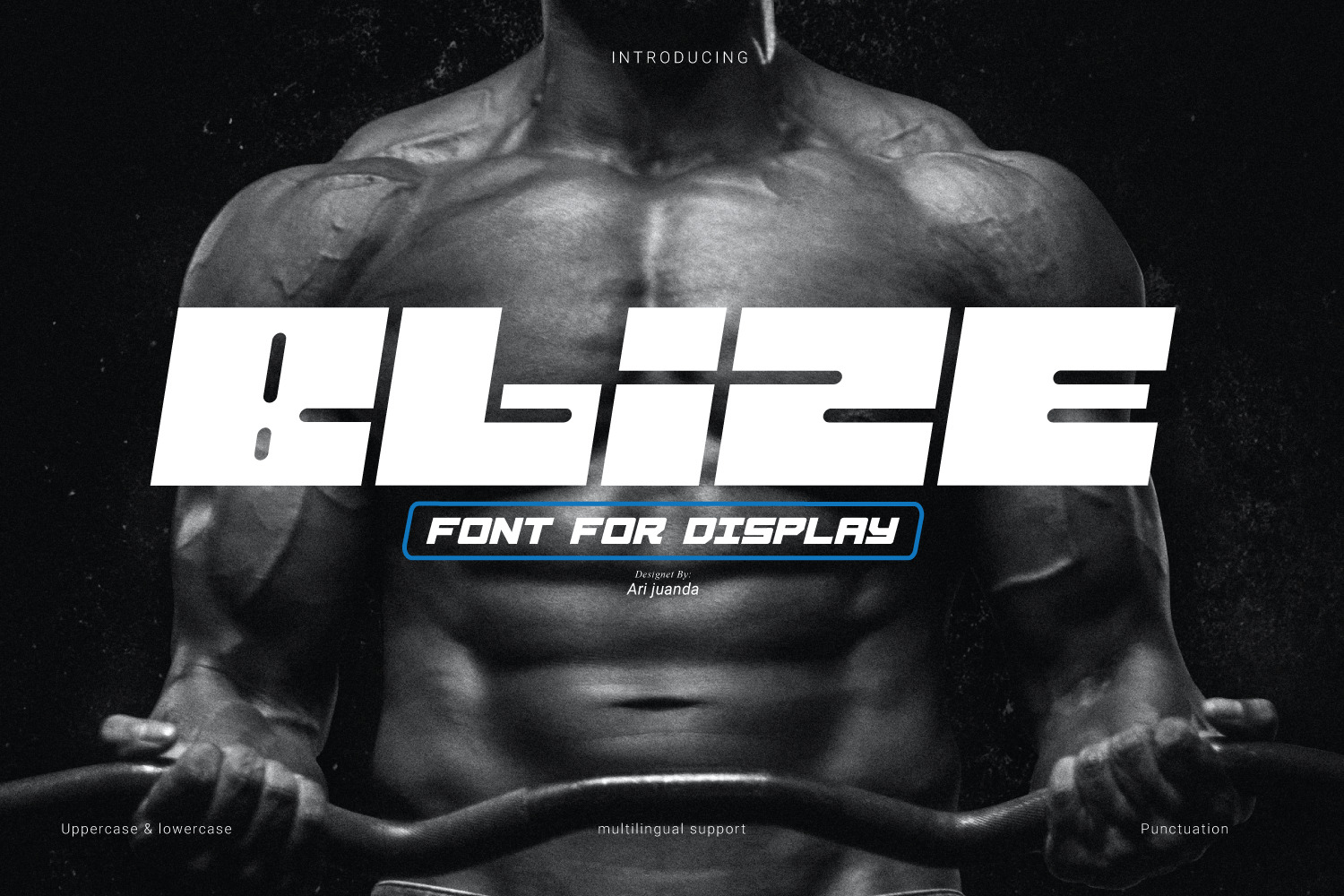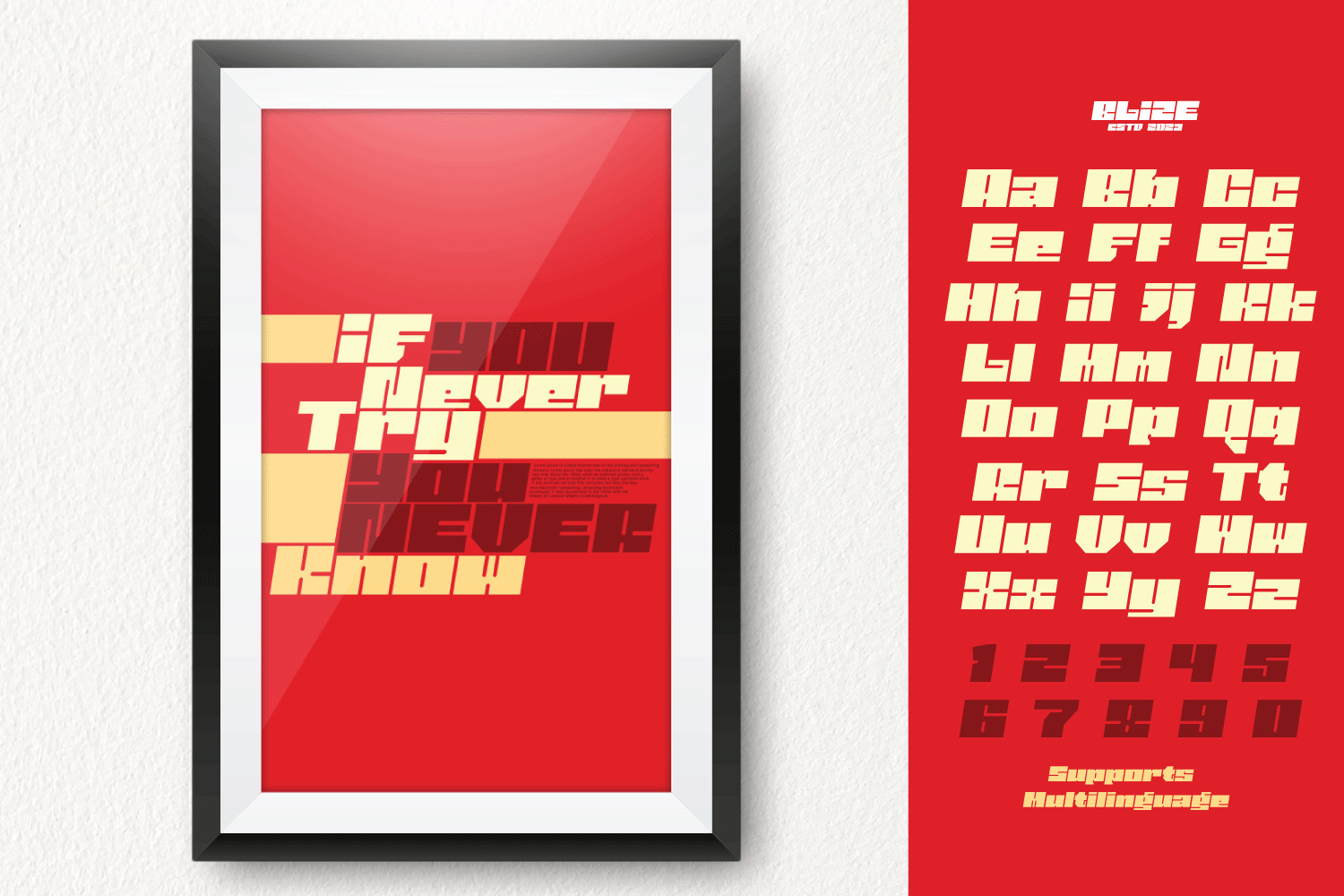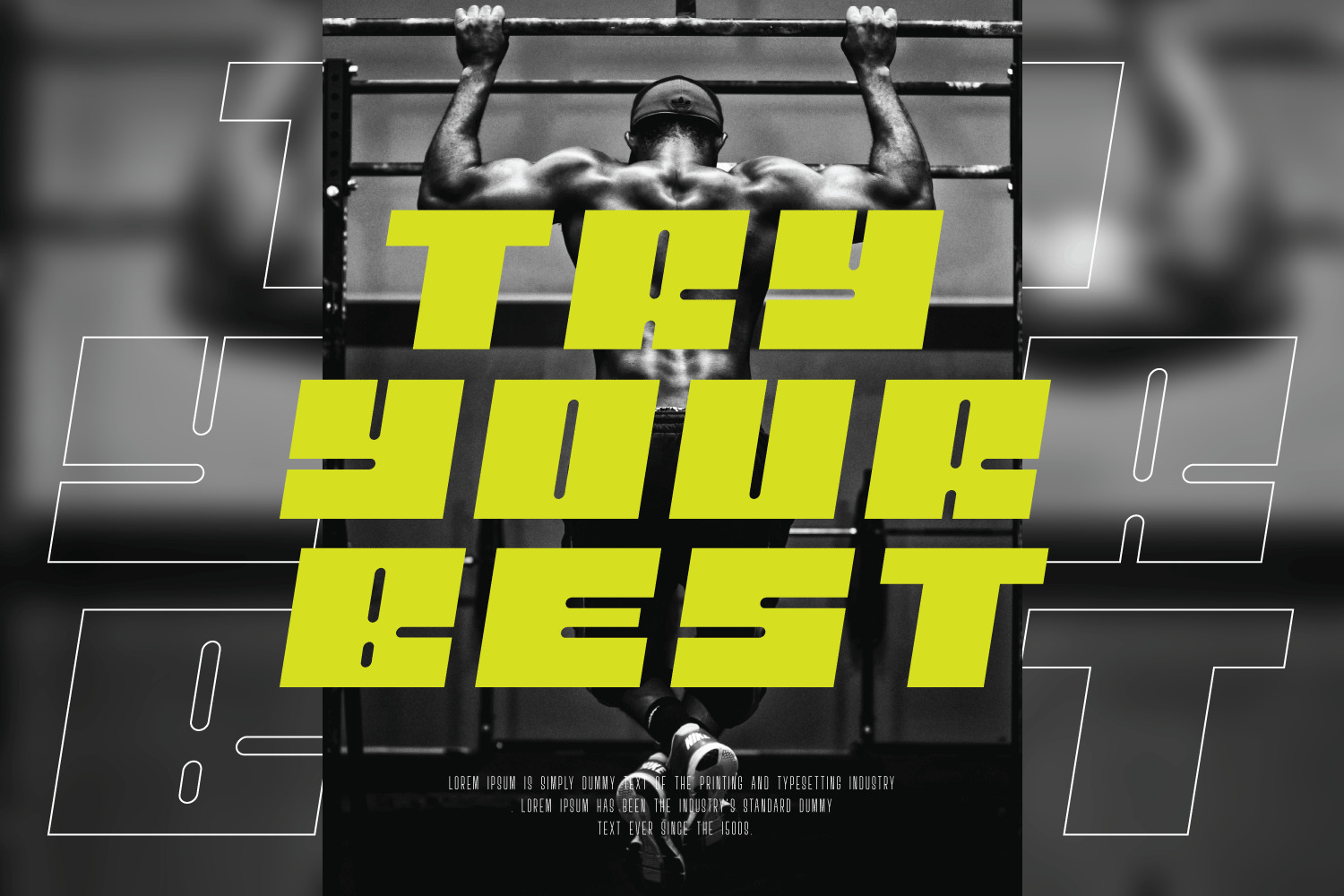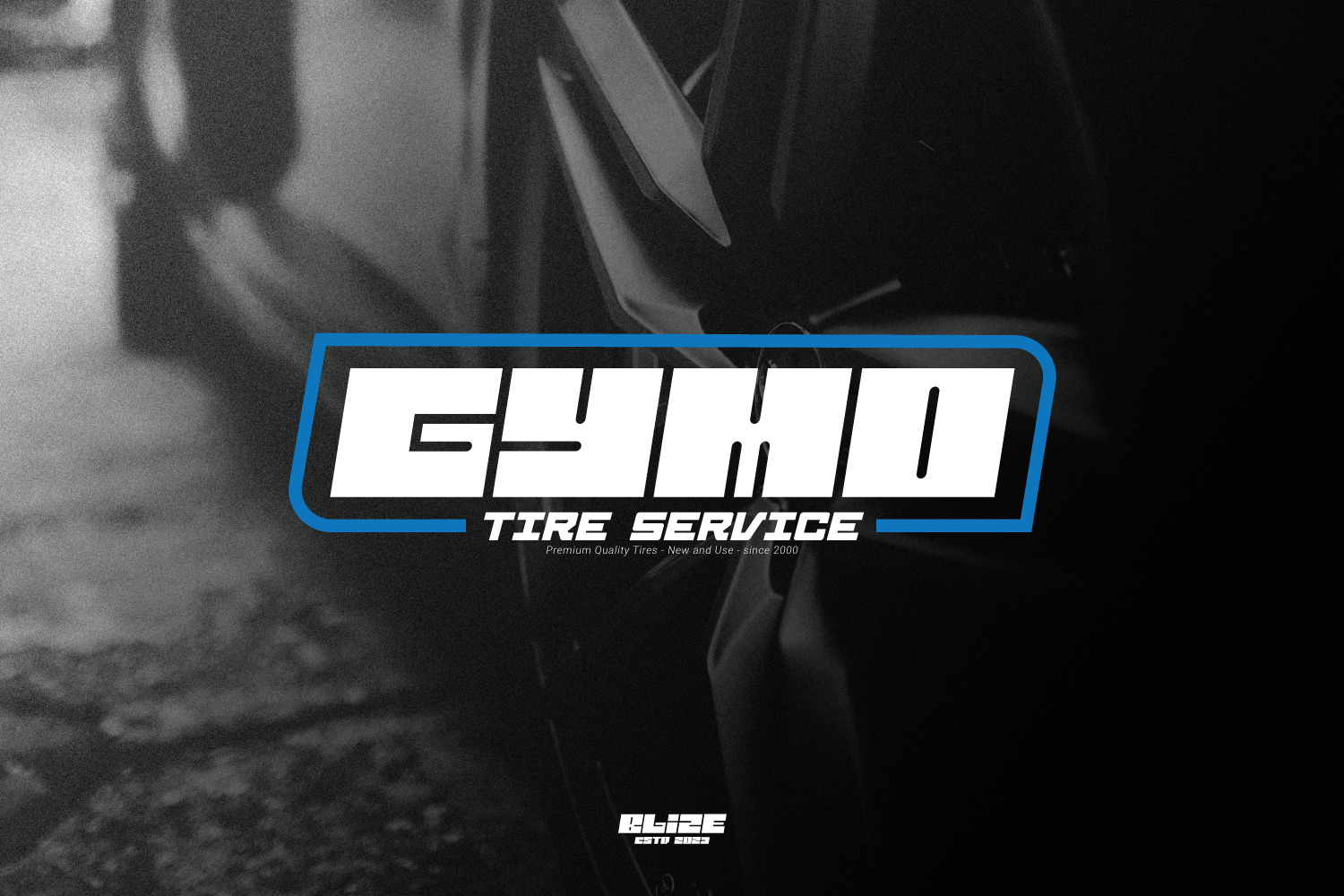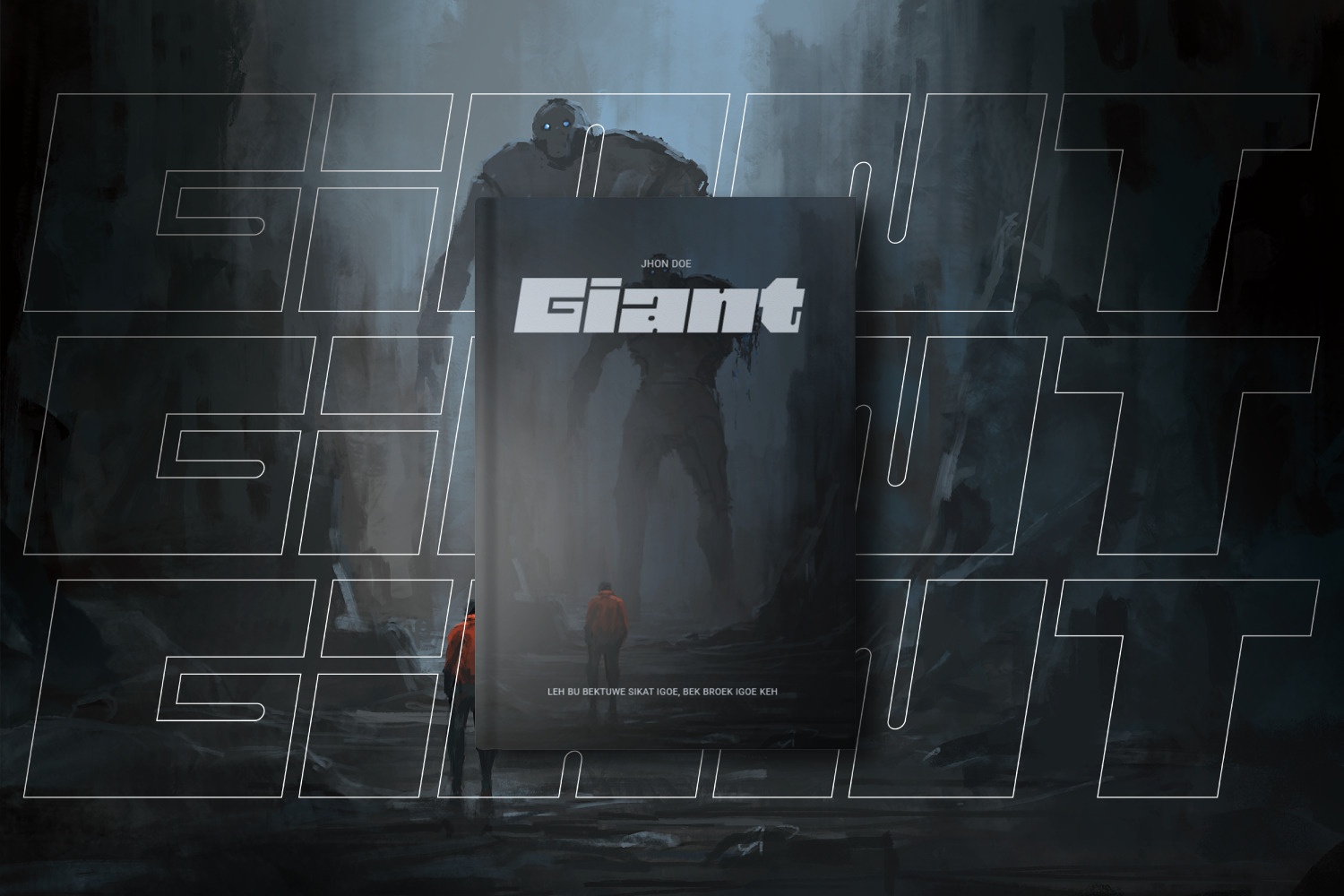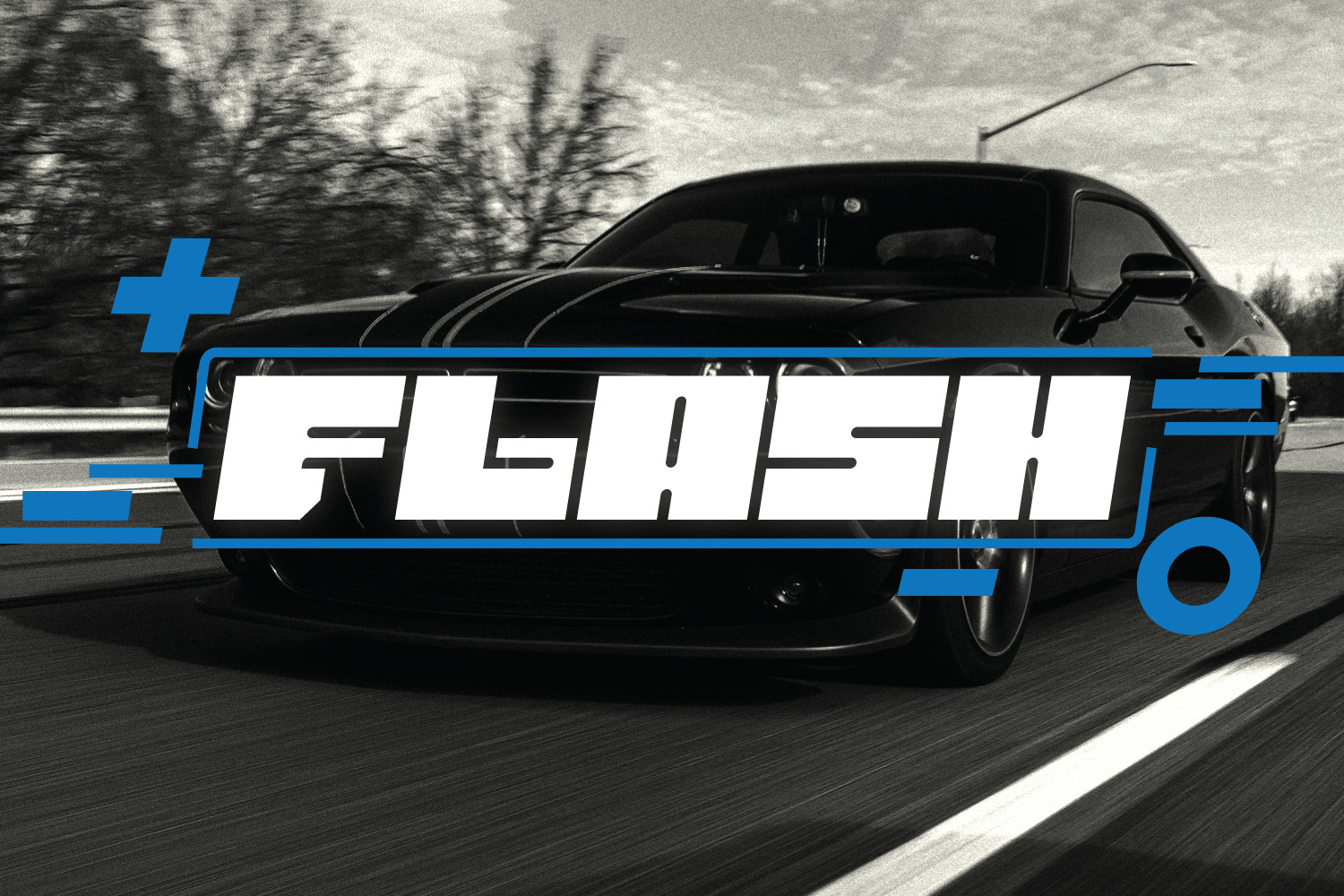
Blize A Typeface
Introducing "Blize" – a dynamic and bold oblique typeface designed to infuse your projects with an unmistakable sense of speed, strength, and sharpness. Crafted with precision, this font exudes a powerful and energetic vibe, making it an ideal choice for projects centered around superhero themes, sports, esports, and other high-energy contexts.
The bold strokes of "Blize" create a commanding presence, instantly capturing attention and conveying a sense of forceful momentum. The oblique angles add a dynamic slant, enhancing the font's overall sense of motion and agility. Each character is meticulously shaped to embody a sleek and streamlined aesthetic, contributing to the font's ability to convey a feeling of speed and intensity.
Whether you're designing a logo for an esports team, crafting promotional materials for a high-impact sporting event, or working on a project that demands a bold and powerful visual identity, "Blize" is the perfect companion. Its bold oblique design ensures that your message is delivered with vigor, leaving a lasting impression on your audience. Elevate your designs with the striking and forceful character of "Blize" – where bold meets speed, and strength meets style.